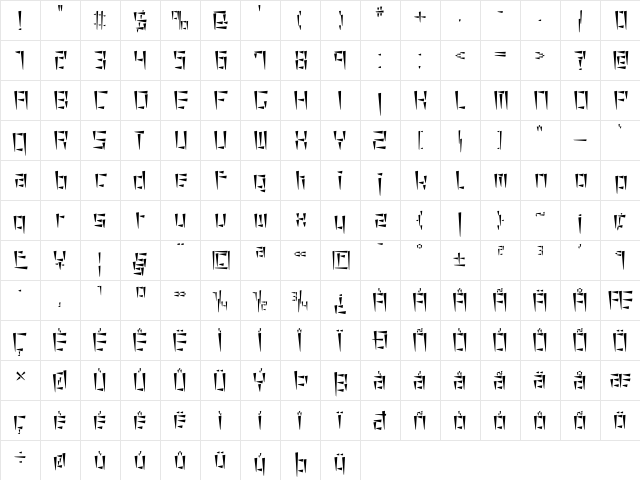
cuneiform Regular
| Designer | ks (sugargliderz) |
Design Context for cuneiform Typeface
cuneiform is a composed and adaptable typeface that performs quietly and consistently across a wide range of design contexts.